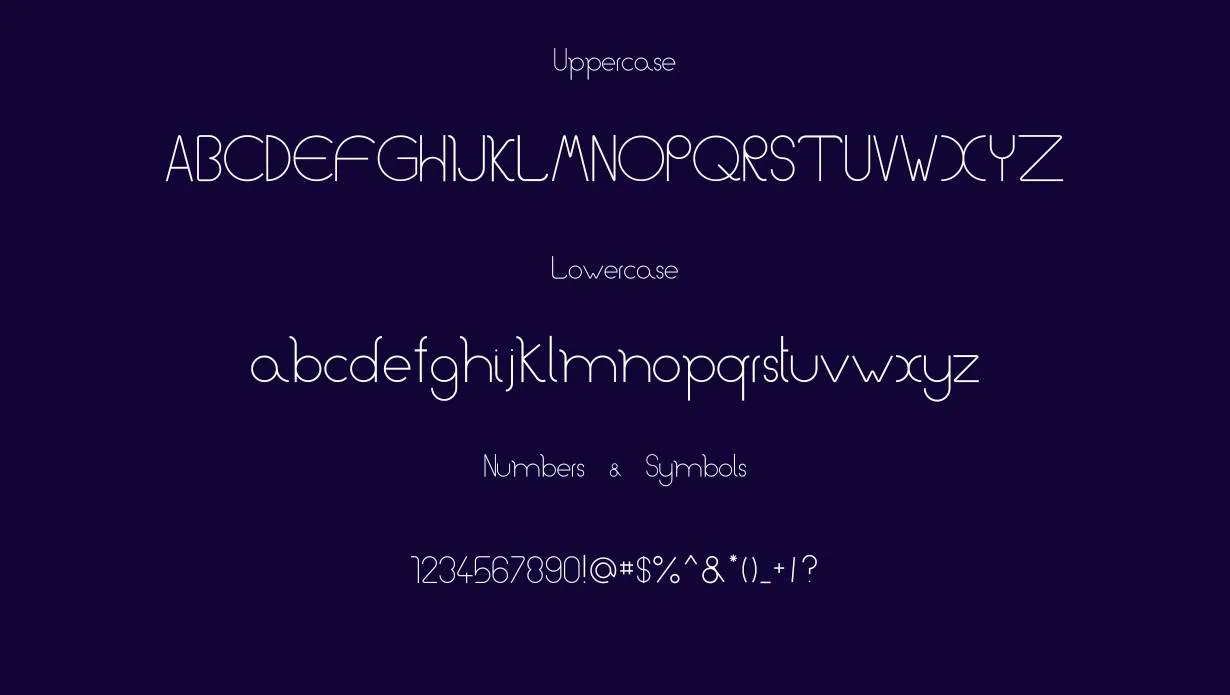
Curvy Font is all about smoothness and flow. Its rounded and flowing letters give off a sense of movement and softness. This font is often used in designs aiming for a friendly and approachable feel, as its curves create a welcoming and warm vibe.
Whether used in children’s books or casual branding, this font adds a sense of friendliness, making the text appear gentle and easy on the eyes. It’s a top choice for those seeking a more relaxed and friendly look for their writing.
| Name | Curvy Font |
| Designer | Riccardo Mecheri |